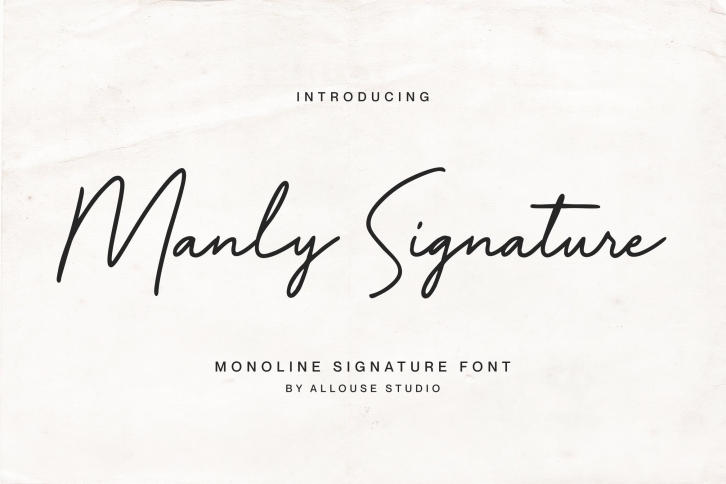
Proudly Present, Manly Signature a Monoline Signature Font
Manly Signature is perfect for any titles, logo, product packaging, branding project, magazine, social media, wedding, or just used to express words above the background.
Manly Signature also come with Multi-Lingual Support.